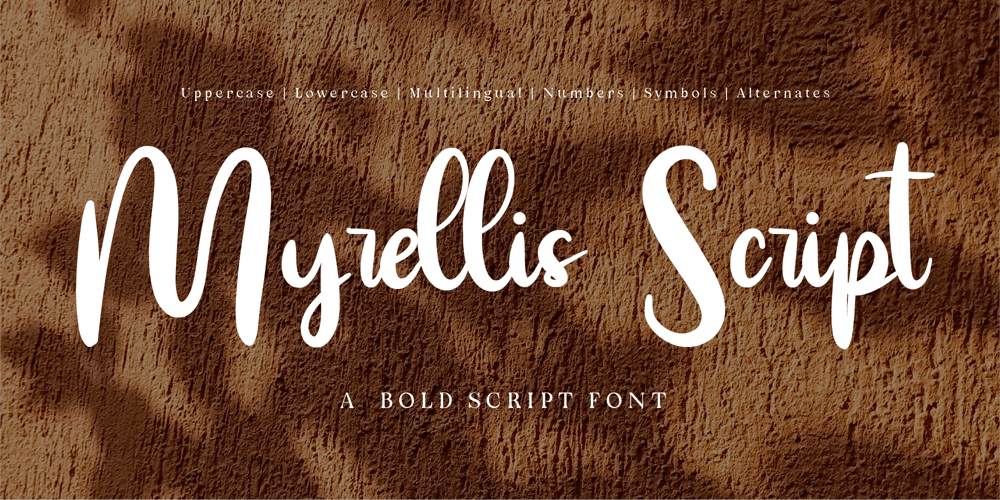
CF Myrellis Script
CF Myrellis Script font
CF Myrellis Script Font Family was designed by Gilang Mei Nugraha, Frederik Aristaputra and published by Creatifont Studio. CF Myrellis Script contains 2 styles and family package options. Myrellis Script – A Bold & Expressive Script FontMeet Myrellis Script, a bold and dynamic script font that captures the perfect balance of elegance and confidence. With its strong, fluid strokes and handcrafted feel, this typeface is designed to make a statement while maintaining a natural, flowing charm.Perfect for branding, packaging, advertising, social media, invitations, and editorial projects, Myrellis Script adds a touch of authenticity and sophistication. The bold yet graceful letterforms ensure high readability while maintaining a unique personality, making it an excellent choice for eye-catching headlines and distinctive logos.Why Choose Myrellis Script?🔥 Bold & Expressive: A strong script with a confident, handcrafted touch.✍ Smooth & Natural Flow: Perfectly balanced strokes for effortless readability.🎨 Versatile & Stylish: Ideal for logos, product packaging, social media, and elegant typography.🌍 Multilingual Support & Alternates: A font that speaks your style, no matter the language.Bring power and personality to your designs with Myrellis Script. Download now and let your words flow with bold elegance! ✨🖋A SUMMARY OF WHAT’S INCLUDED:- Standard Character A-Z, a-z, 0-9, Punctuation & symbols- Regular and Italic- Works on PC & Mac- Simple installation- Accessible in Adobe Creative Suite (Ai, Ps, Id, etc.) even work on Microsoft Word.- PUA Encoded Characters – Fully accessible without additional design software.🌟If you come across any issues or notice anything we might have overlooked while using this product, please feel free to reach out to us. We greatly value your feedback as it helps us enhance and refine our products. Thank you!